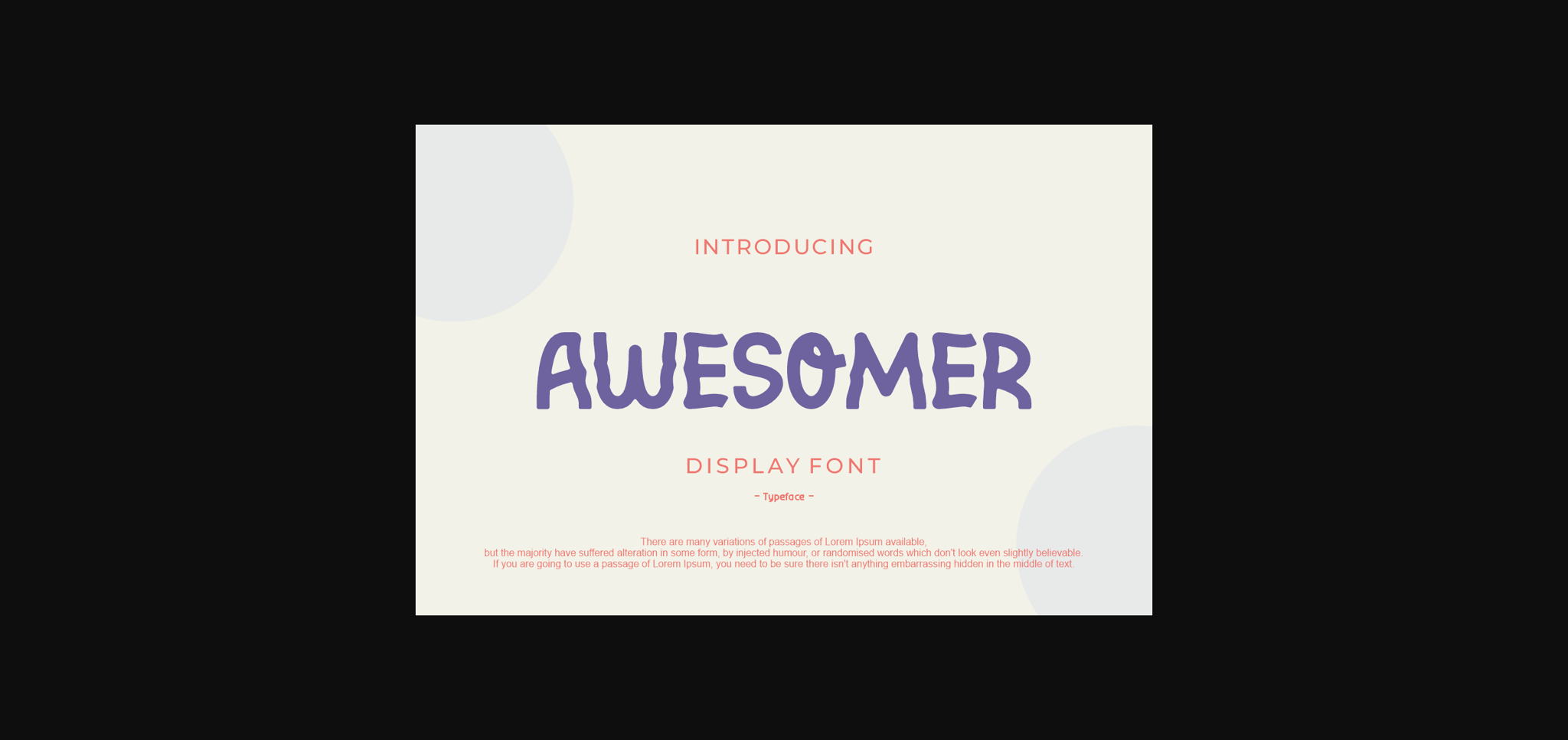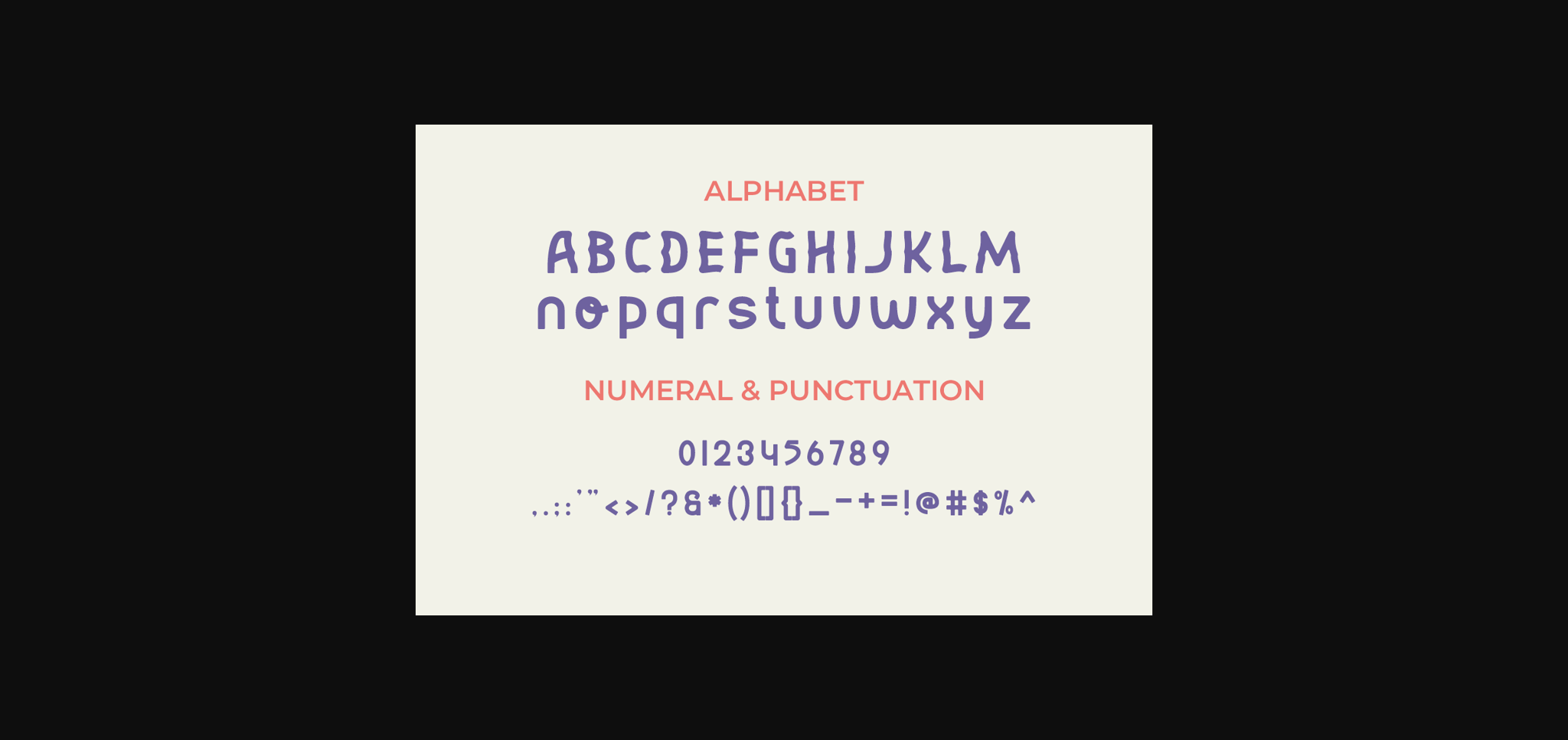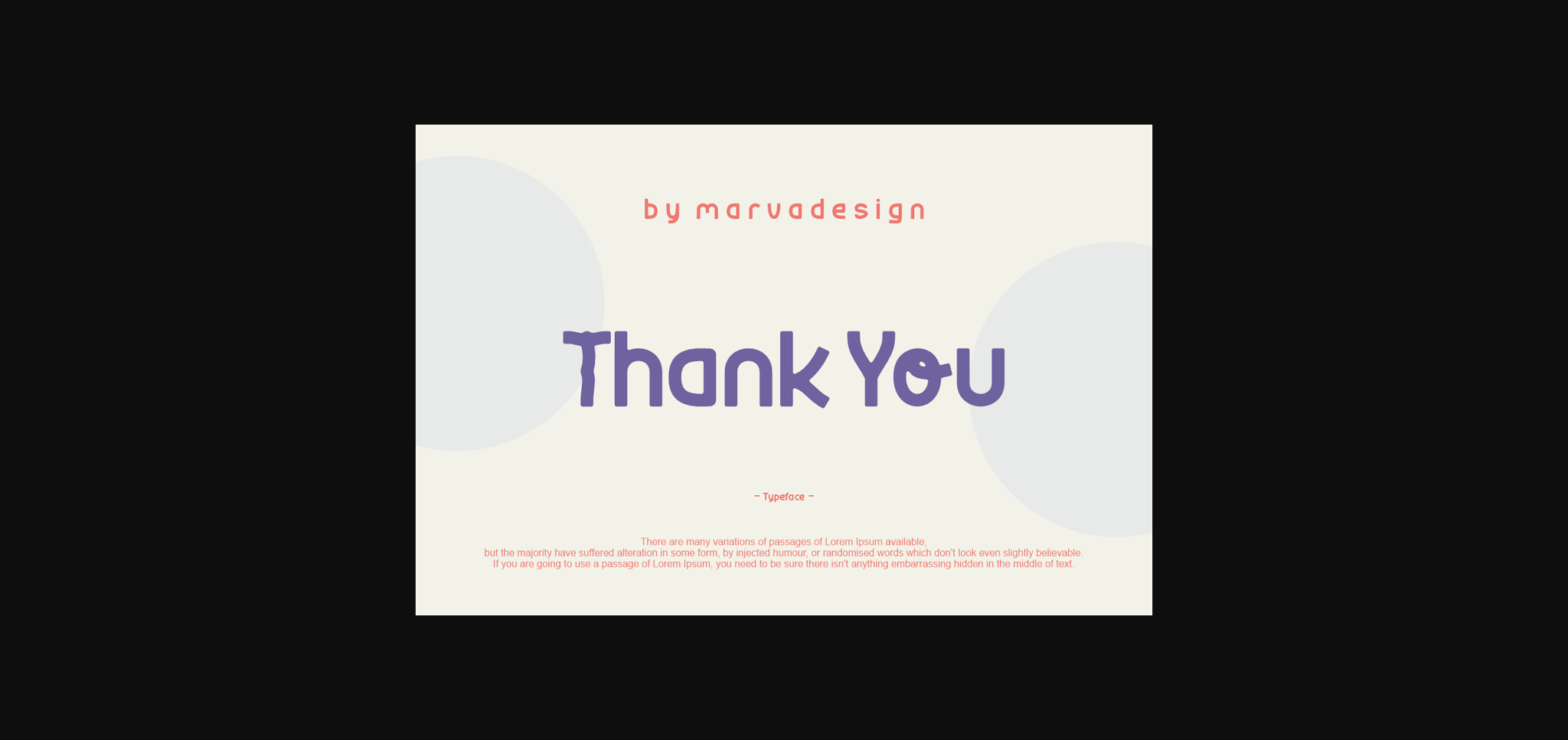
Awesomer Font
About Awesomer Font
Awesomer is a cool and unique sans serif display font. Whimsical and a little bit quirky, this font will brighten up each of your designs!